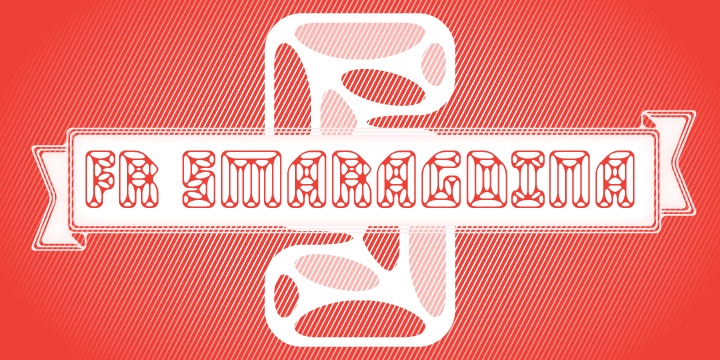
FR Smaragdina Font
FR Smaragdina Font is perfect for luxury jewelry branding, precious gemstone marketing, high-end fashion labels, premium cosmetics packaging, elegant spa branding, sophisticated wellness centers, exclusive boutique signage, upscale beauty salons, and refined lifestyle communications.
FR Smaragdina Font is exciting because it captures the rare beauty and precious nature of emerald gemstones with its exquisite letterforms that radiate elegance and sophistication. Its distinctive character design embodies the lustrous quality of fine jewelry and precious materials, making it perfect for brands that want to communicate luxury, rarity, and exceptional value in competitive premium markets.
The FR Smaragdina Font family includes Light, Regular, Medium, Bold weights, elegant Italic variations, Decorative capitals, Luxury flourishes, Gemstone alternates, Precious ornaments, and Jewel elements, providing designers with comprehensive tools for creating sophisticated luxury brands that capture the essence of precious materials and exclusive craftsmanship.
FR Smaragdina Font Free Download delivers exceptional luxury typography inspired by the world's most precious gemstones, featuring carefully crafted letterforms that embody the brilliance and rarity of fine jewelry design. This exquisite typeface combines classical elegance with contemporary refinement, creating a distinctive visual language that resonates with discerning luxury consumers and high-value market segments.
Whether you're developing jewelry brand identities, designing precious gemstone marketing, creating luxury spa materials, or producing high-end beauty communications, FR Smaragdina Font provides the precious foundation needed for extraordinary luxury positioning. Its jewel-like character makes it particularly effective for fine jewelry houses, luxury beauty brands, premium wellness services, and exclusive boutiques targeting affluent clientele.
Perfect for luxury jewelry designers, high-end beauty marketers, premium spa brands, and creative directors working with luxury clients, this font offers the precious qualities essential for successful luxury market positioning. The typeface's sophisticated nature ensures memorable brand experiences that justify premium pricing and exclusivity expectations.
FR Smaragdina Font includes extensive luxury character sets, gemstone-inspired design elements, and refined spacing that guarantees superior performance in precious luxury applications. Its jewel-like approach to typography makes it indispensable for brands competing in luxury jewelry and beauty markets. Discover precious typography with FR Smaragdina Font Free Download and create designs that truly sparkle with luxury.